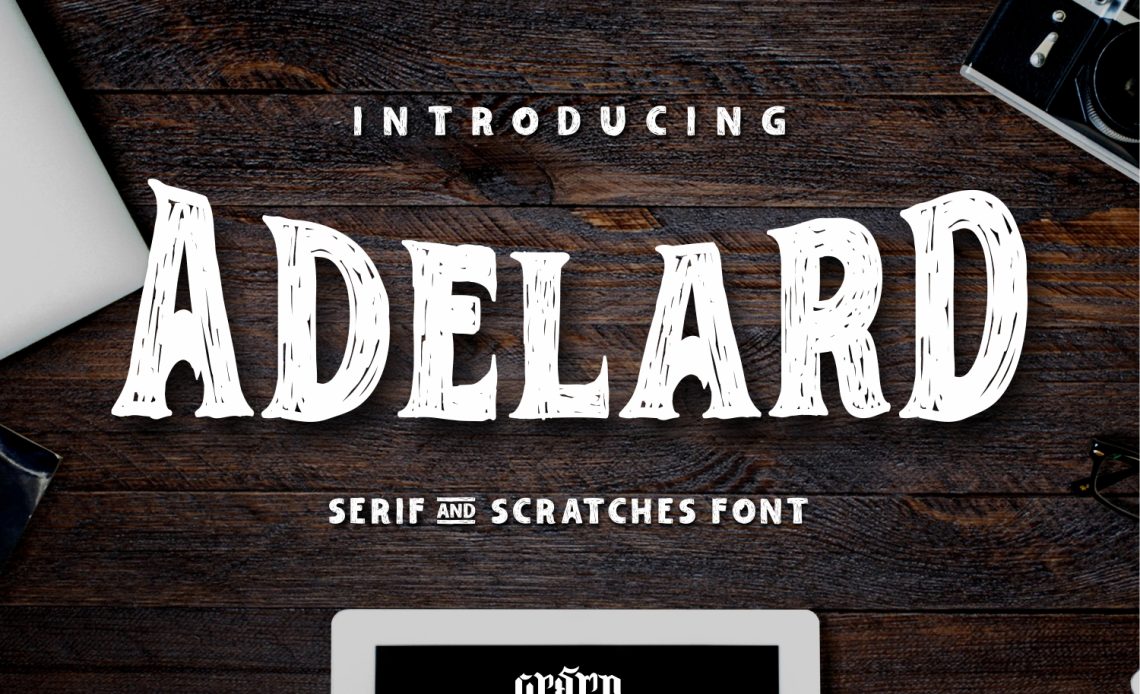
Introducing Adelard Font, the ultimate solution for your poster making needs. Developed by the talented Garisman Studio, this slab serif font is designed to elevate your text and captivate your audience. With its unique manual scratches, Adelard creates a natural and authentic look, reminiscent of handwritten text with a pen.
Are you tired of generic fonts that lack personality? Adelard is here to change the game. Its eye-catching appeal and highly stylized lettering style will make your posters stand out from the crowd. Whether you're designing for a music festival, a movie premiere, or a product launch, Adelard is the perfect choice to grab attention and leave a lasting impression.
But Adelard offers more than just visual appeal. Its versatility is unparalleled, making it suitable for a wide range of project types. From bold headlines to elegant body text, this font seamlessly adapts to any design requirement. Say goodbye to the limitations of one-dimensional fonts and embrace the endless possibilities that Adelard brings to the table.
Immerse yourself in the world of creativity with Adelard Font. Let your imagination run wild as you explore the countless possibilities this font offers. Its emotional and expressive qualities will evoke a sense of passion and authenticity in your designs.
Why settle for ordinary when you can have extraordinary? Adelard Font is the perfect companion for designers, artists, and anyone seeking to make a statement. It's time to unleash your creativity and take your poster making to new heights.